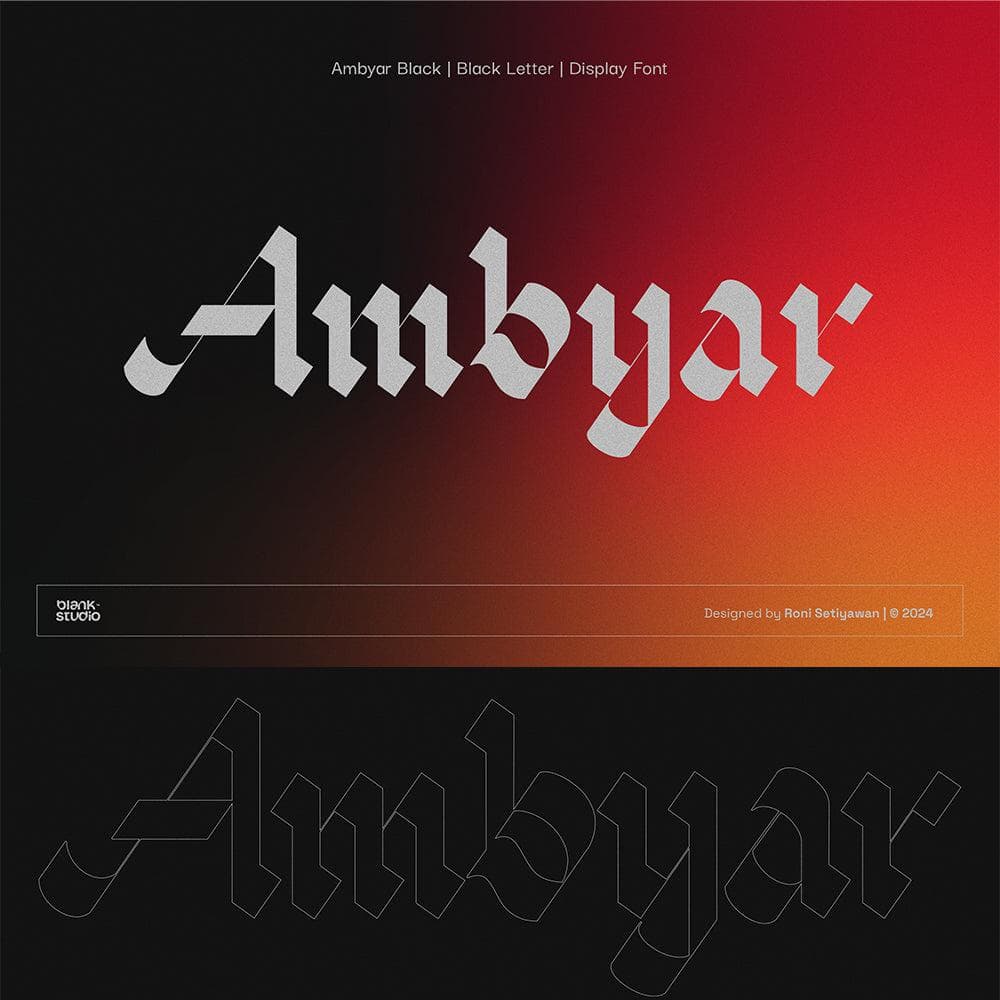
<p><strong>"Ambyar Black"</strong> is a bold and expressive blackletter typeface designed to evoke a sense of elegance, power, and nostalgia. Rooted in the traditional Gothic script, it reimagines the classic blackletter style with a modern twist, making it versatile for both vintage and contemporary design projects.<br>This font is perfect for creating impactful logos, striking headlines, or artistic posters. Its sharp angles and fluid curves give it a dynamic personality, while its intricate details reflect a deep appreciation for traditional craftsmanship. Whether used for branding, editorial design, or personal projects, <strong>Ambyar Black</strong> commands attention and adds a dramatic flair to any composition.</p> <p><strong>Zip includes</strong></p> <ul> <li>OTF file</li> <li>TTF file</li> <li>WOFF2 file</li> </ul> <p><strong>Languages</strong></p> <ul> <li>Basic Latin</li> <li>English</li> <li>Spanish</li> <li>Portuguese</li> <li>Italian</li> <li>German</li> <li>French</li> </ul>